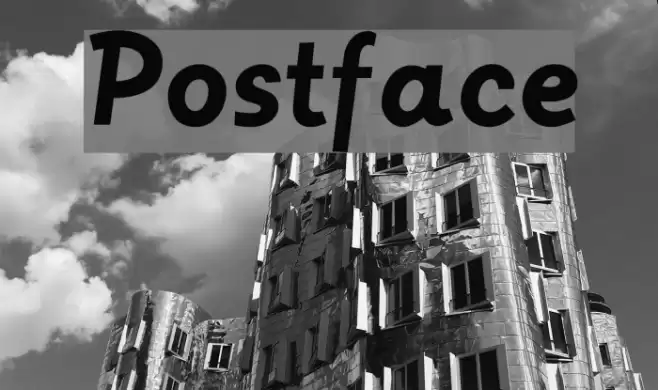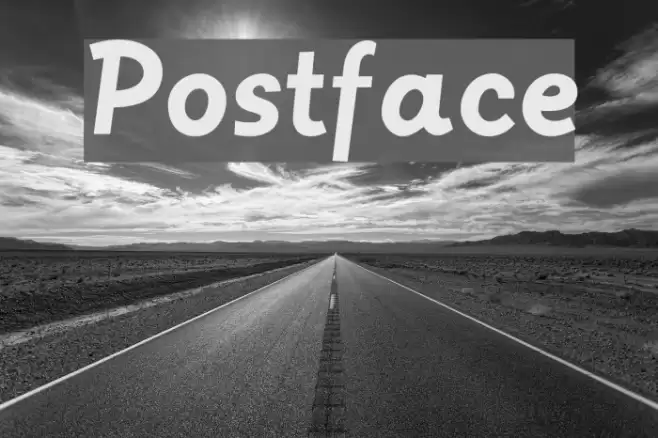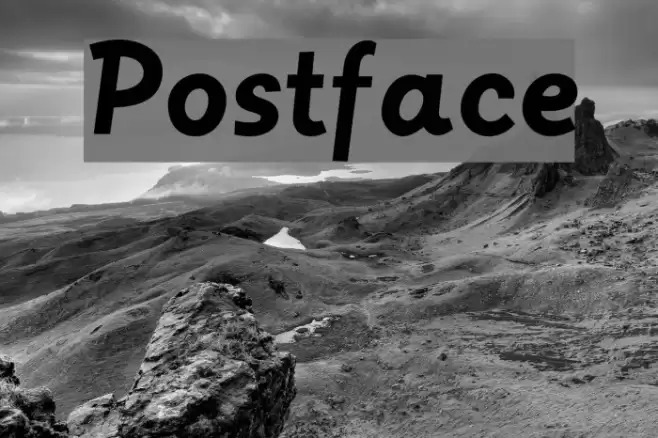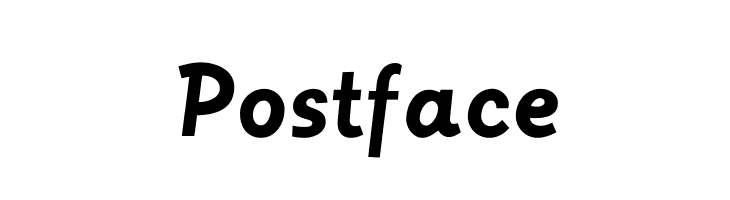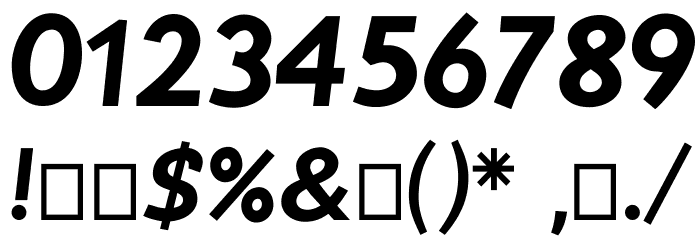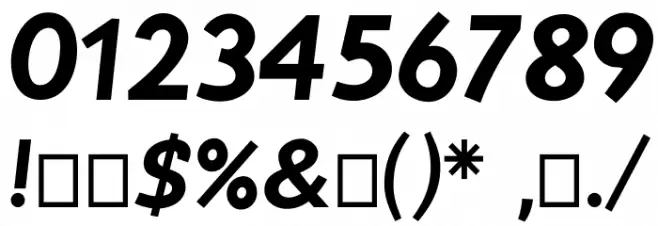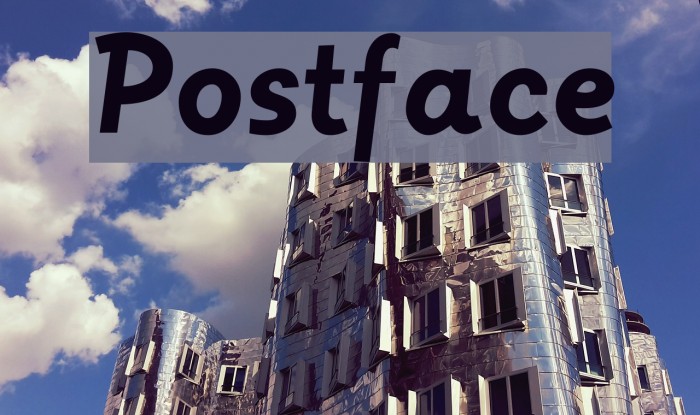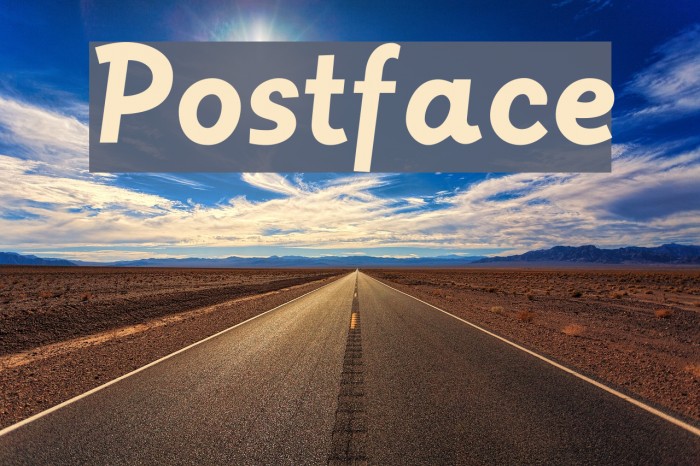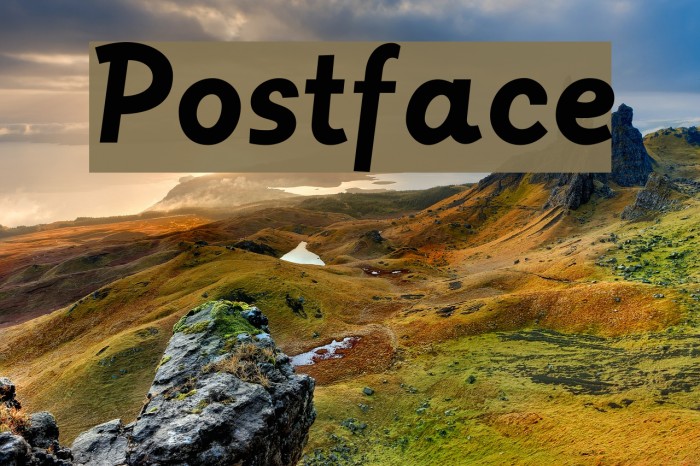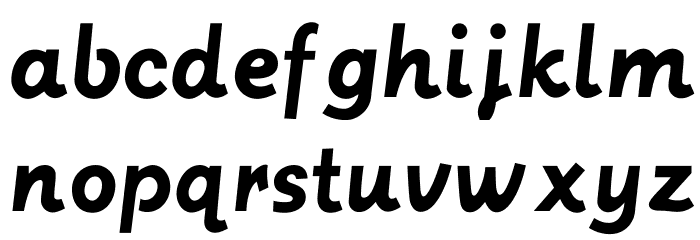
Postface Font
Postface Description
This font features a playful and dynamic style, characterized by its bold and slightly italicized letterforms. The uppercase letters exhibit a strong presence with a slight slant, giving them a sense of movement and energy. The lowercase letters maintain this playful aesthetic, with rounded edges and a consistent stroke width that enhances readability. Numbers are bold and clear, making them suitable for various applications. Special characters are well-integrated, maintaining the overall cohesive look of the font. The design is versatile, making it suitable for both digital and print media.
A bold, slightly italicized font with a playful and dynamic style from Uncategorized fonts.
- Proposed Projects: Ideal for branding, advertising, children's books, and playful design projects.
- Overall Style: Playful and dynamic